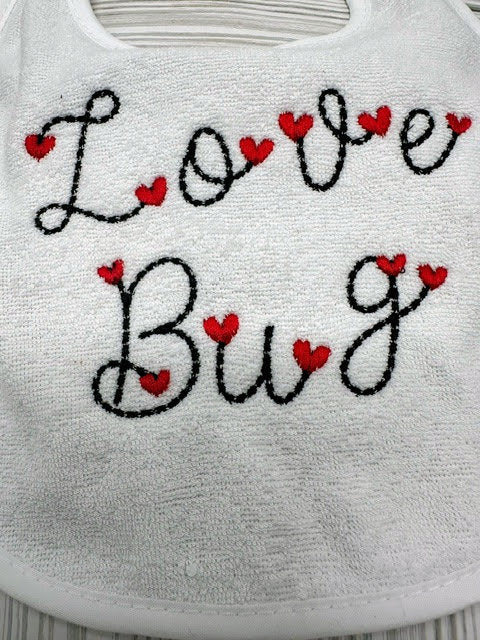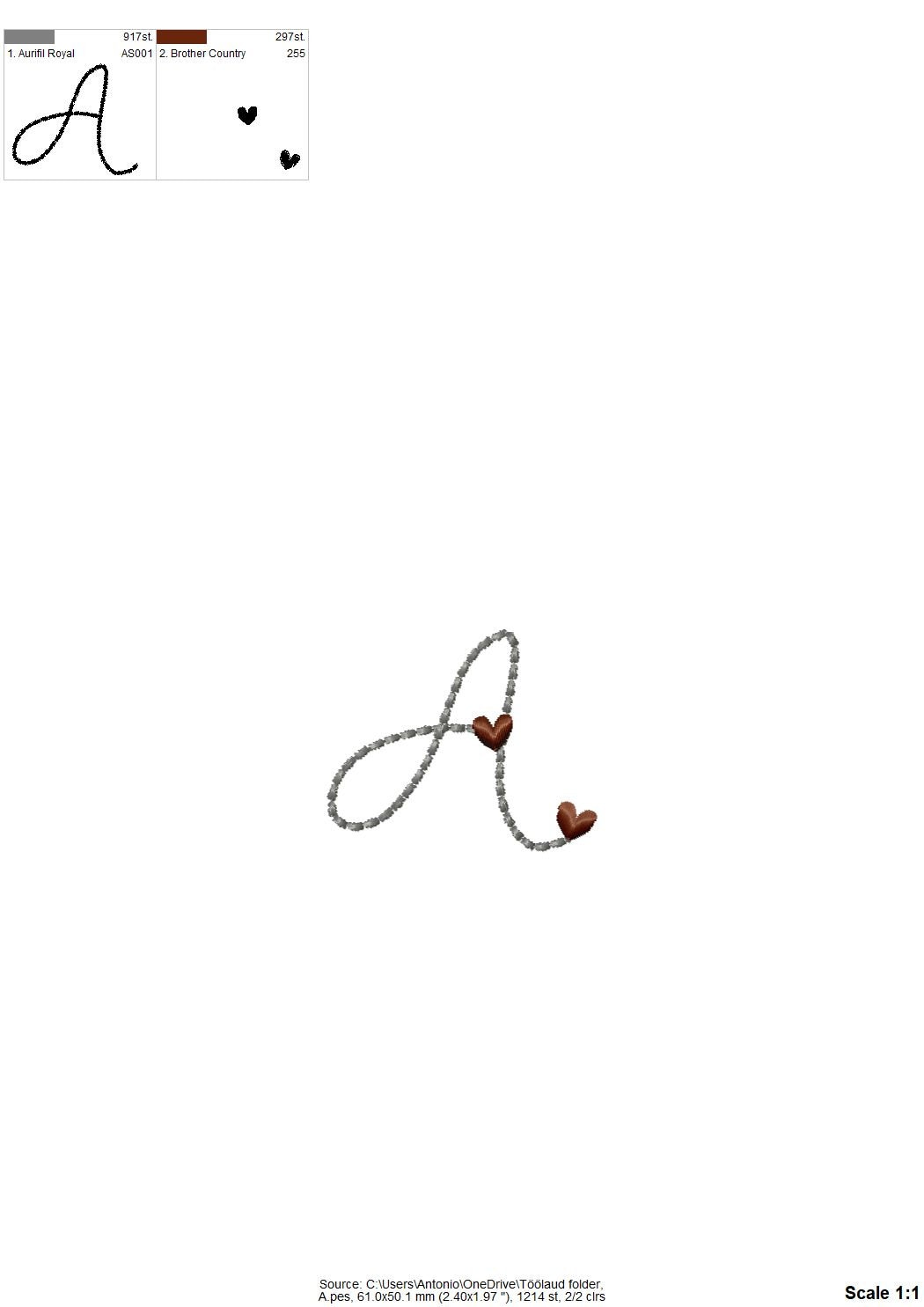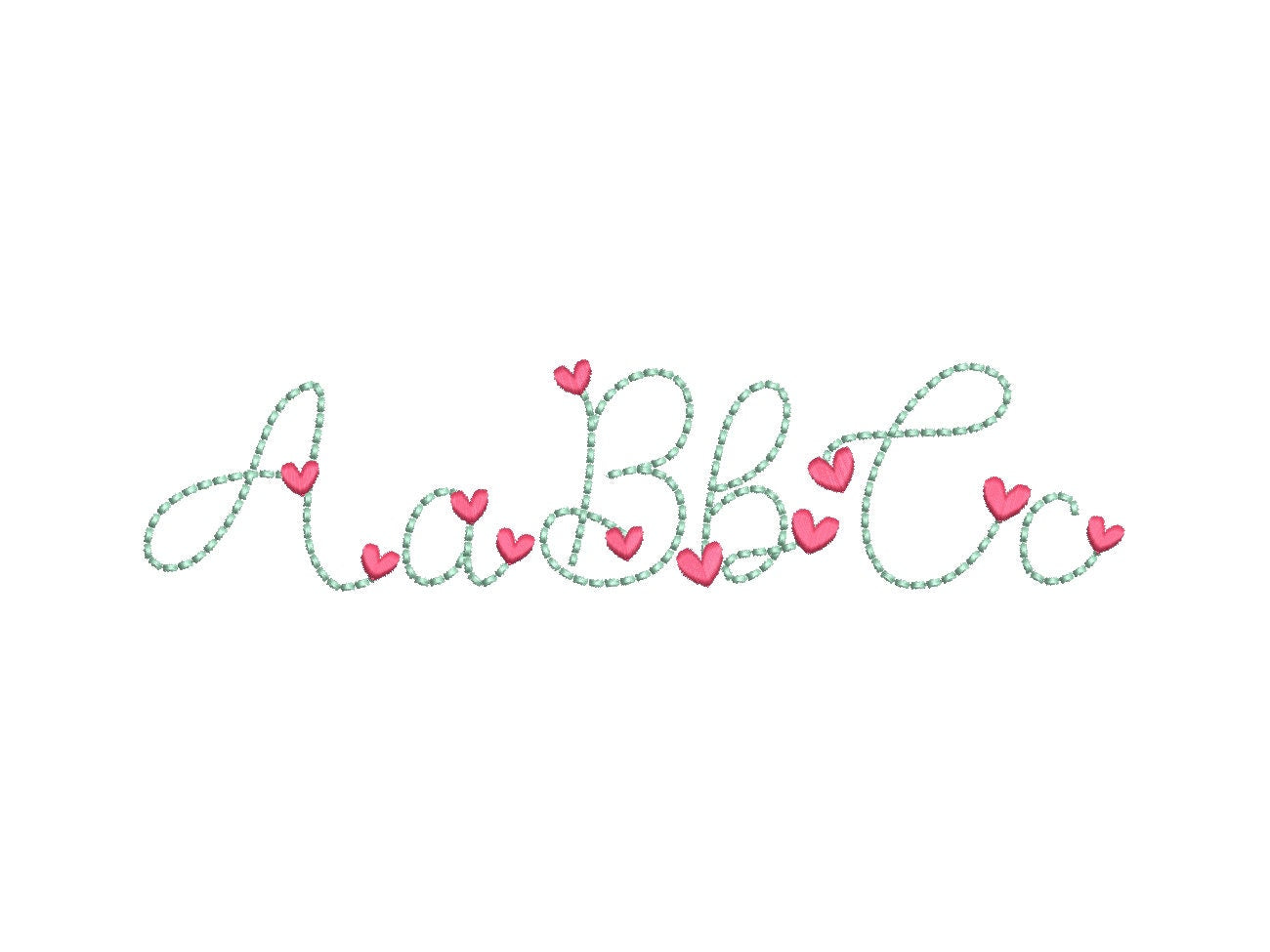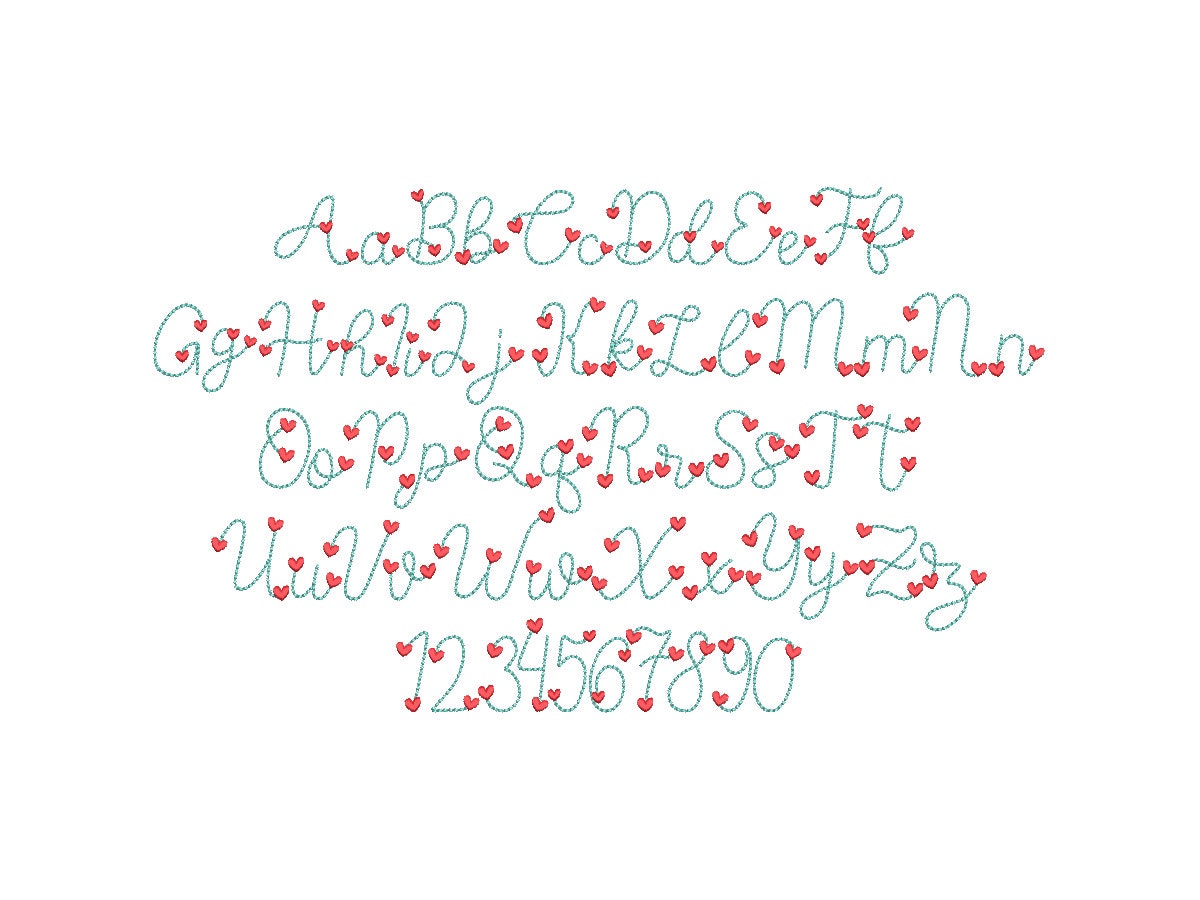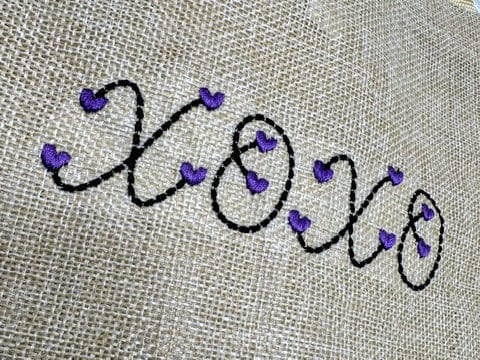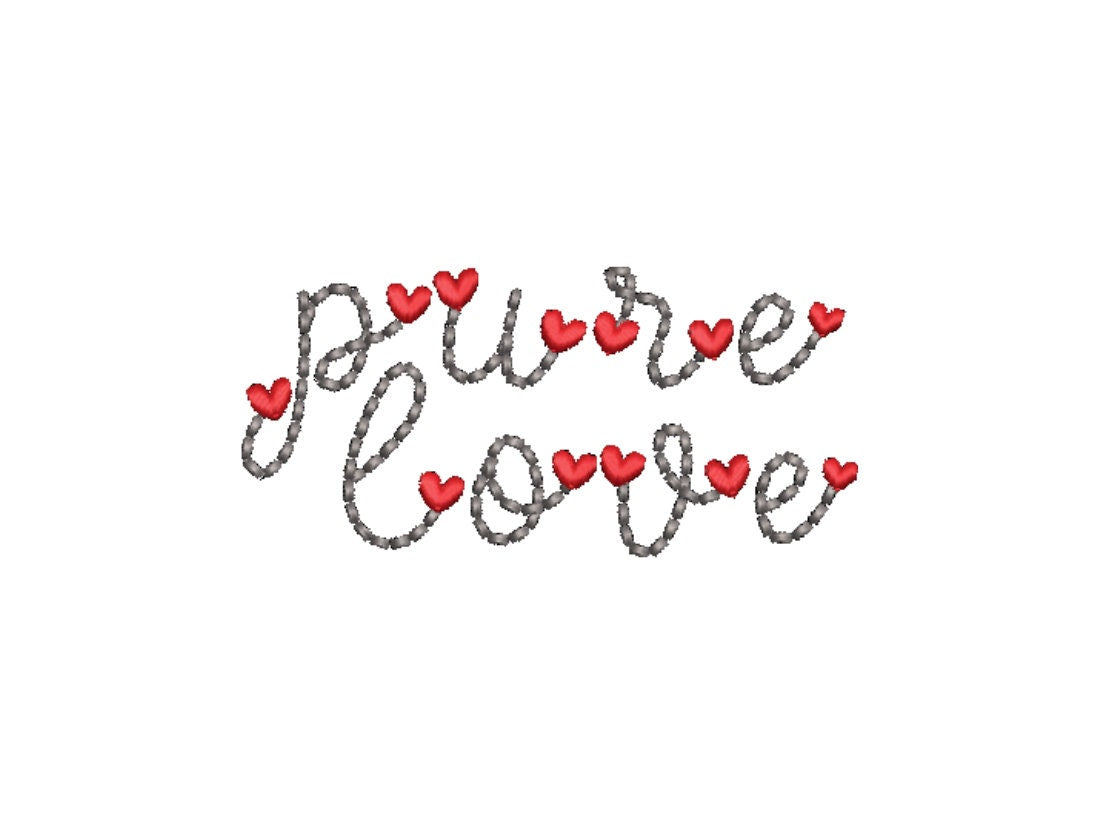
Valentine Heart Font
Or click to open the linkA handwritten Valentine script with little hearts, stitched in a puffy bean stitch line. Lovely for Valentine's gifts, girls' clothes and small names.
The letters come in six sizes: 0.8, 1, 1.3, 1.6, 2 and 2.4 inches. The bean stitch sits slightly raised and gives the letters a soft 3D look. Includes uppercase and lowercase letters and numbers 0 to 9.
- Heart script font in puffy bean stitch
- Uppercase and lowercase letters, numbers 0 to 9
- 6 sizes, 0.8 to 2.4 in